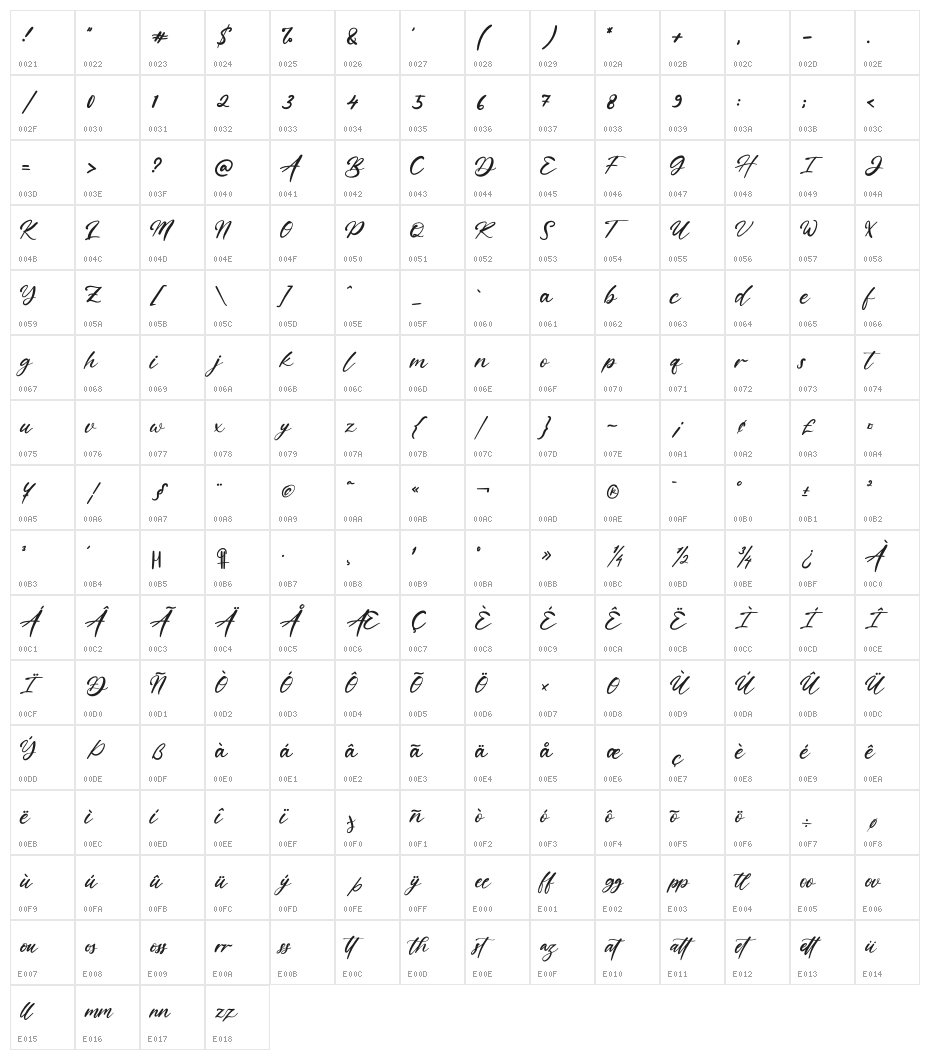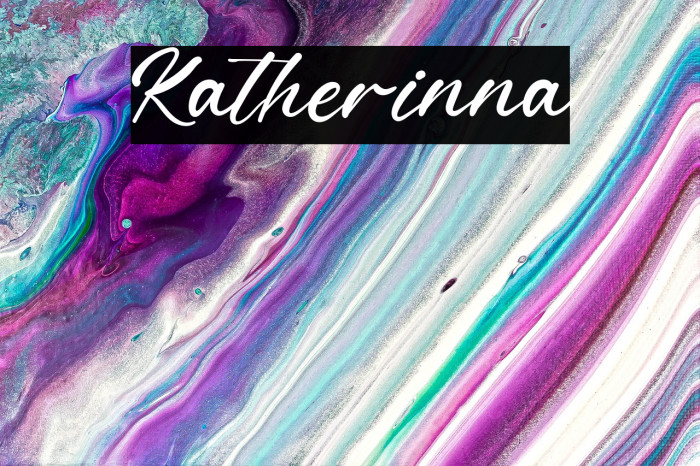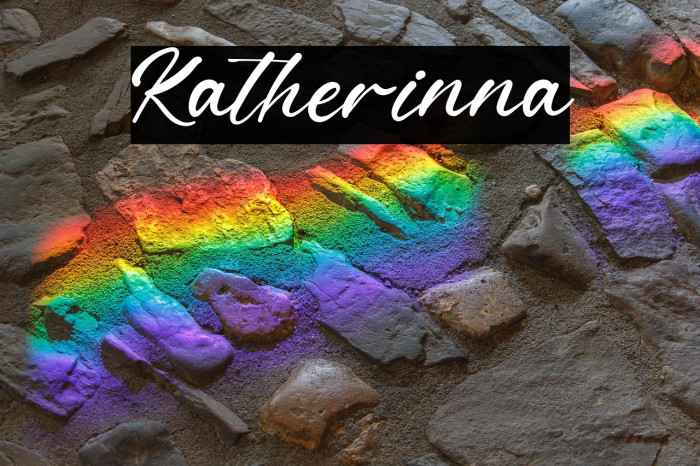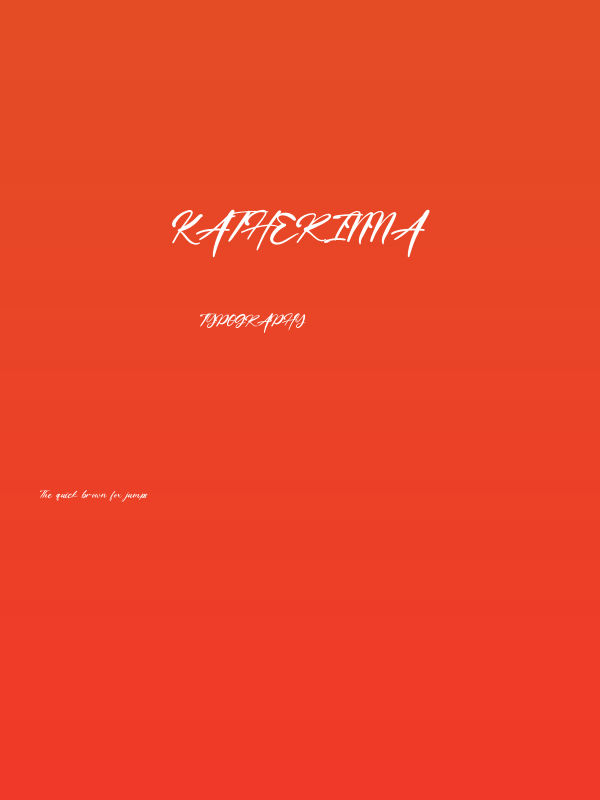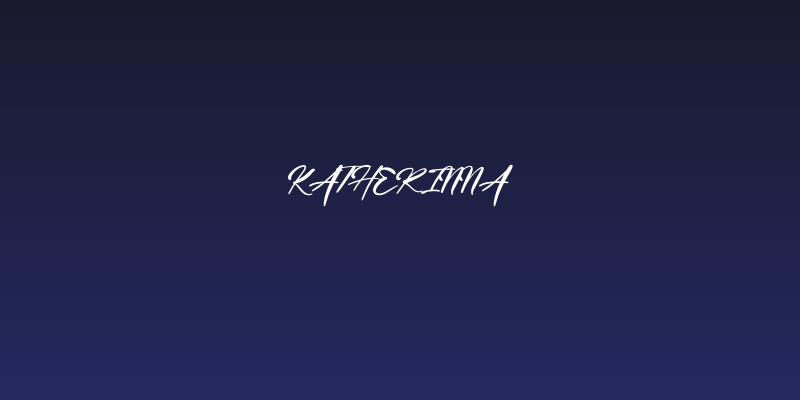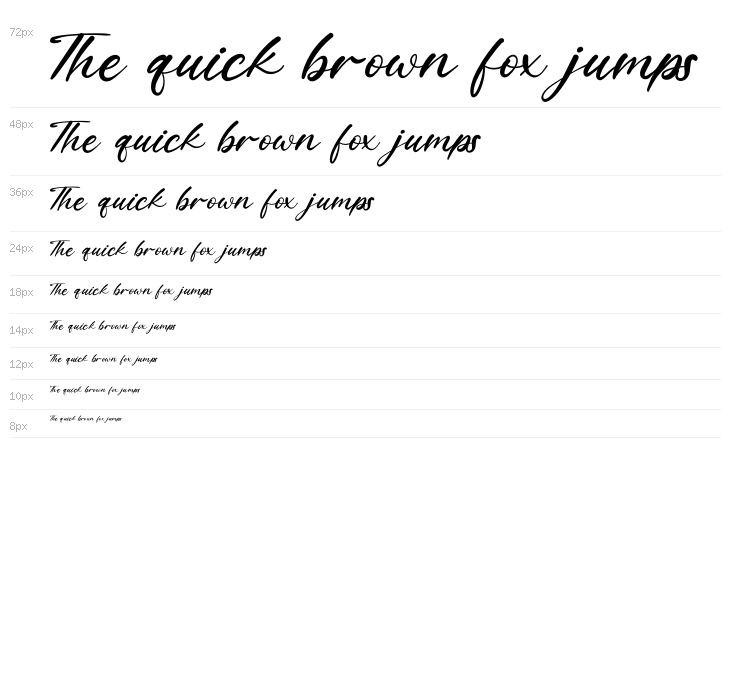
Katherinna Font
Katherinna Description
This font exudes elegance and fluidity, characterized by its cursive, handwritten style. The letters are connected, creating a seamless flow that mimics natural handwriting. The uppercase letters are bold and prominent, while the lowercase letters maintain a consistent rhythm and balance. The numerals and special characters are crafted with the same attention to detail, ensuring uniformity across all elements. The strokes are smooth and slightly varied in thickness, adding a touch of sophistication. This font is perfect for projects that require a personal, artistic touch.
| Overall Style | Elegant, Artistic |
| Proposed Projects | Ideal for wedding invitations, greeting cards, personal branding, and artistic projects. |